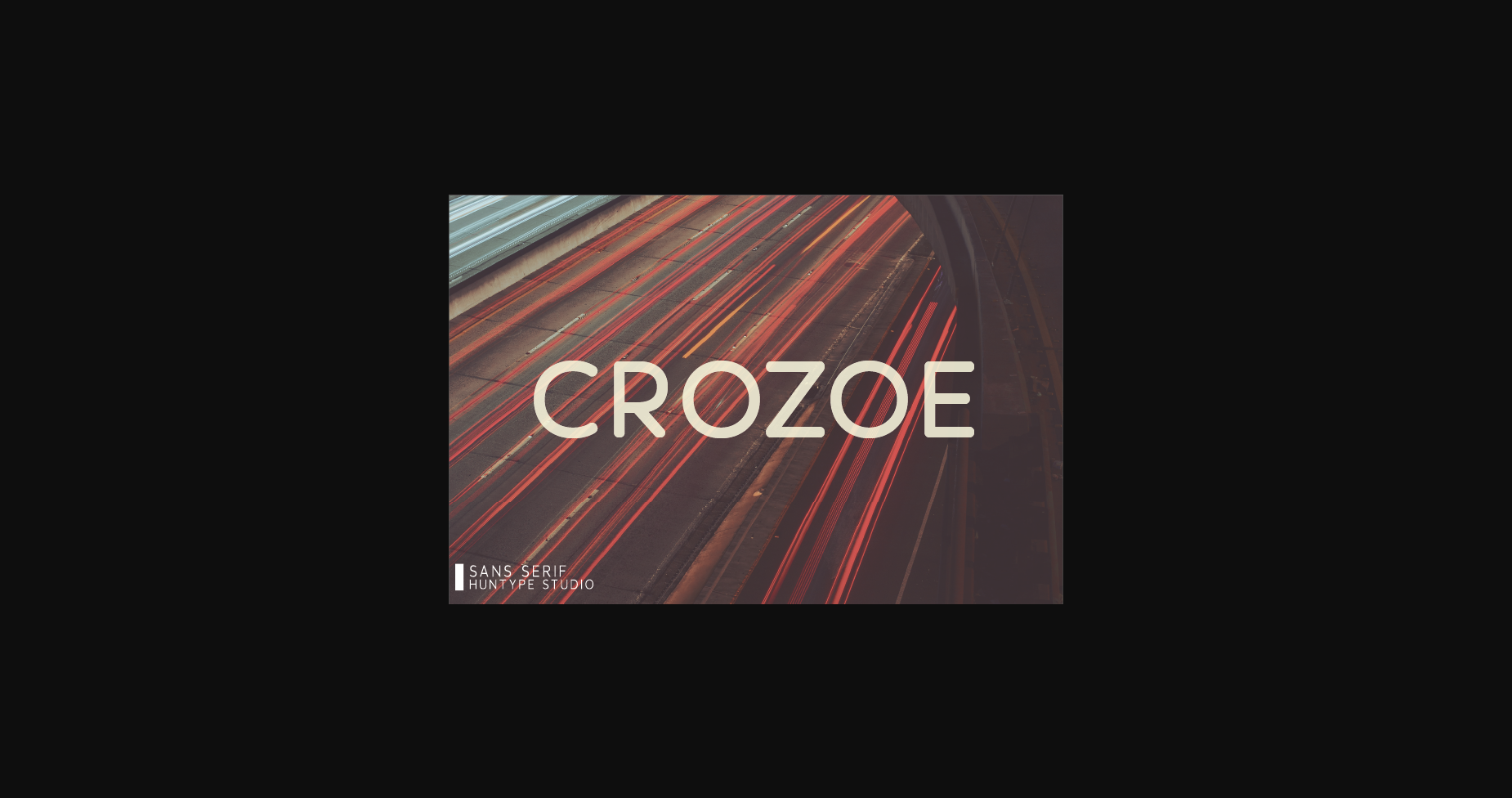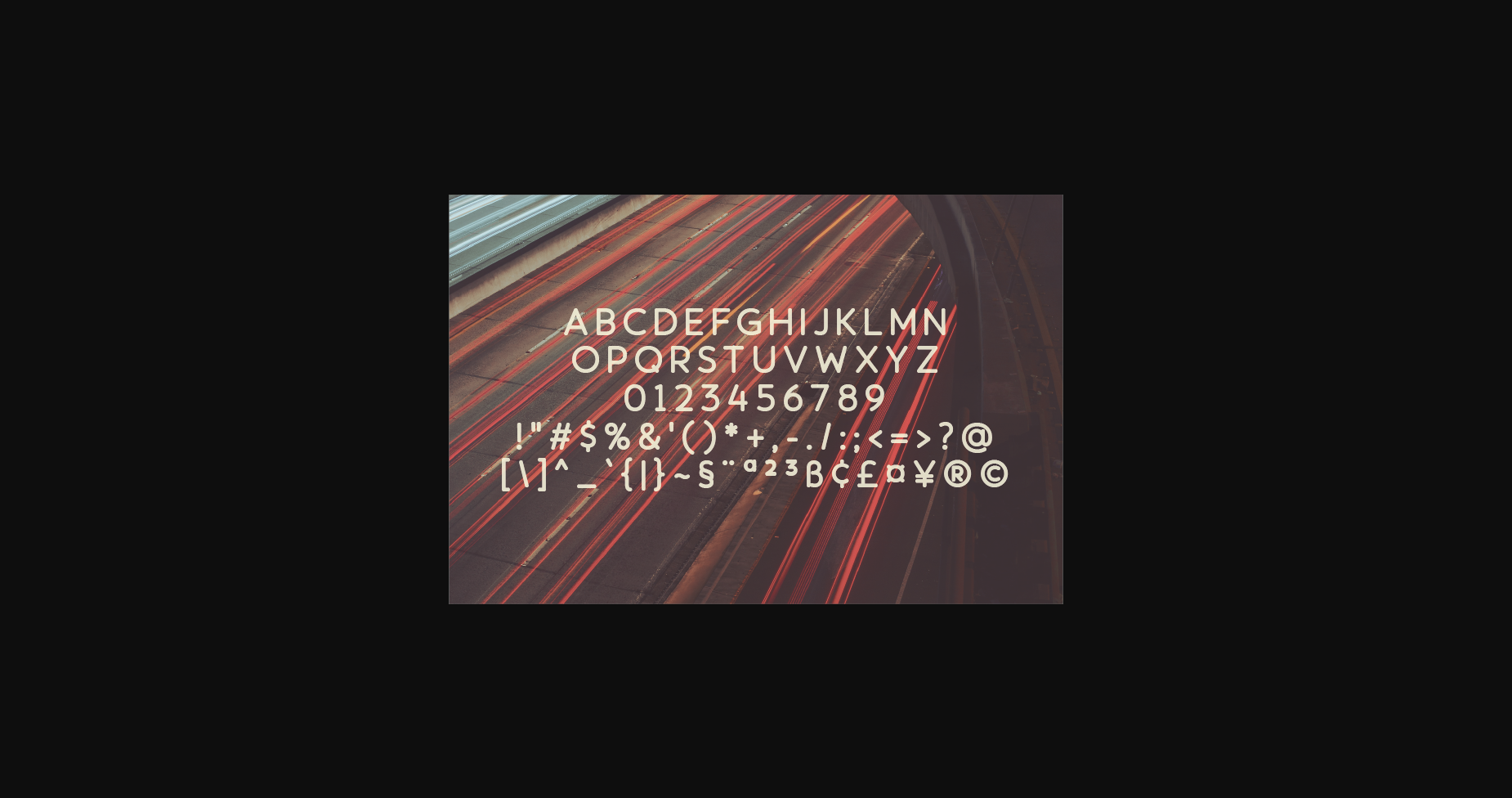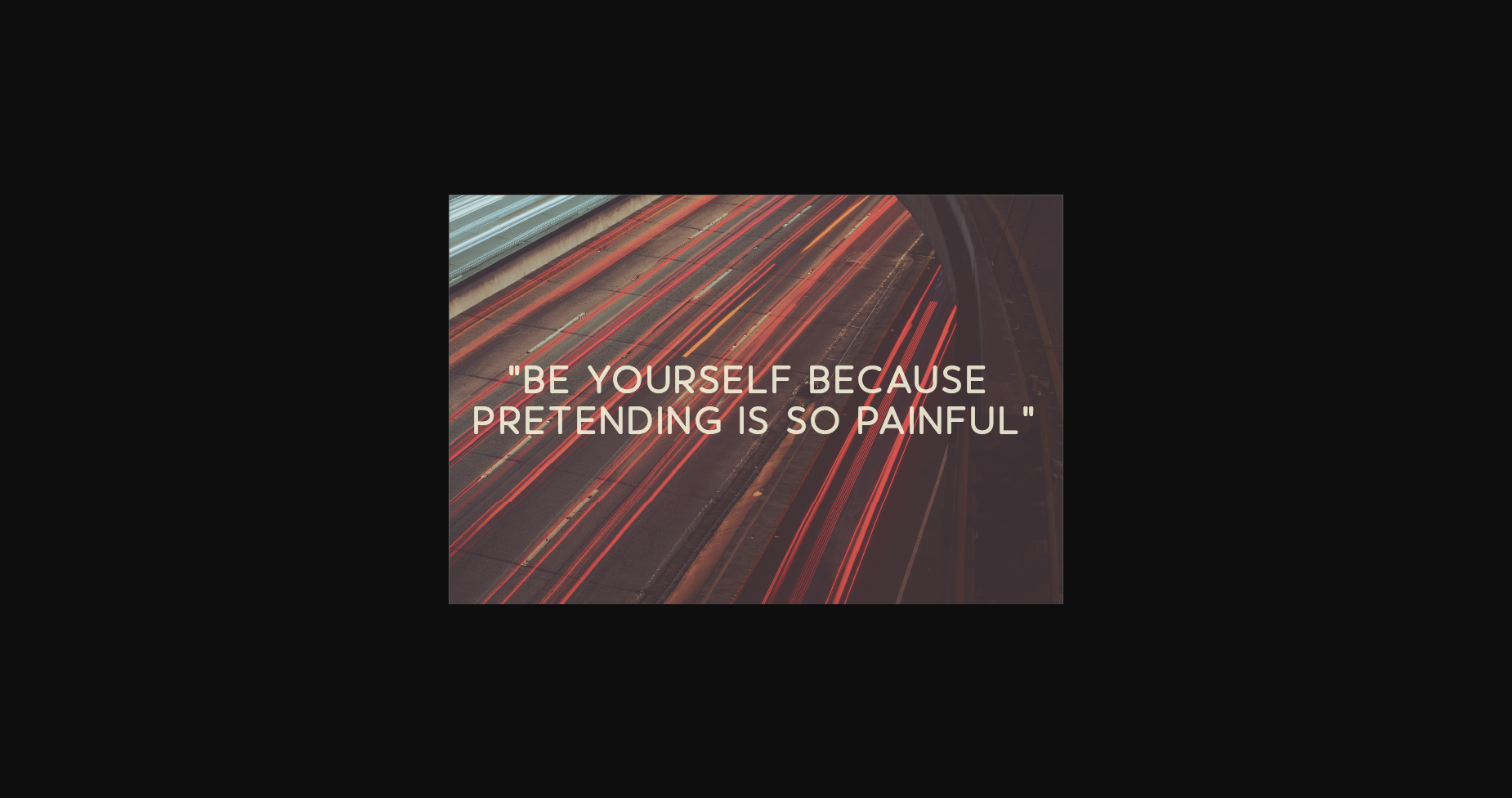
About Crozoe Font
Crozoe is a minimal and neat sans serif font. It can easily be matched to an incredibly large set of projects, so add it to your creative ideas and notice how it makes them stand out!